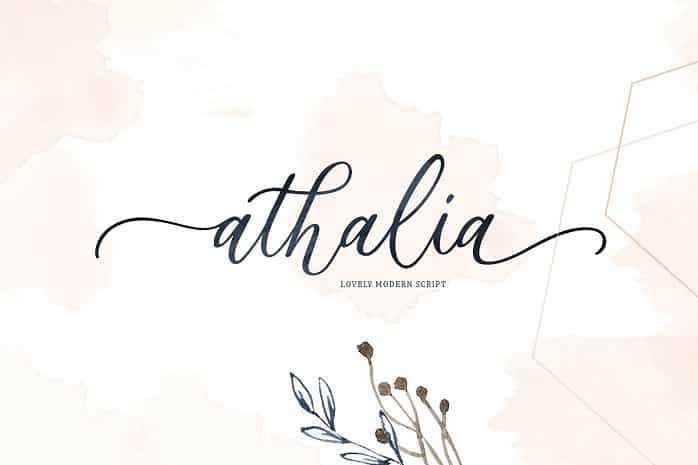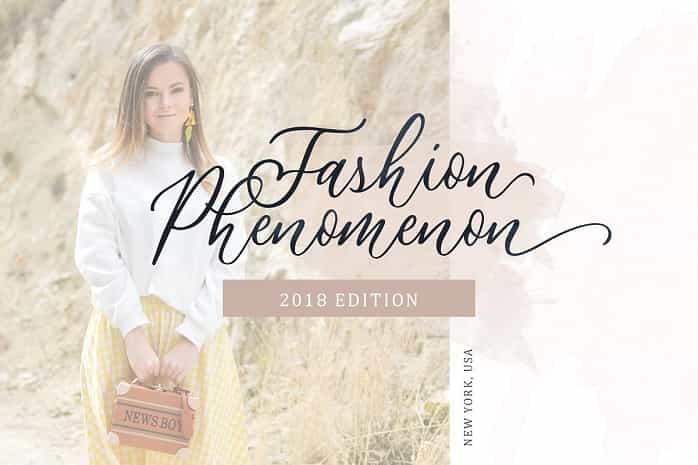
Introducing Athalia Font. Athalia is a fashionable and modern script that gives off luxury. The natural hand writing script is a great option for everyone typeface, logotype, various headline, and etc. It’s suitable for packaging, branding, apparel, advertising, invitation and many more.